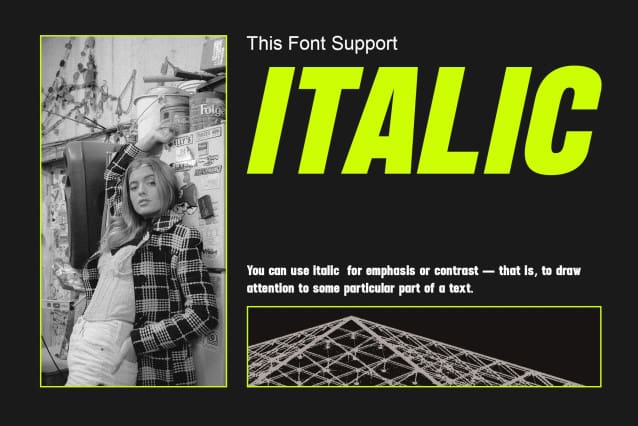
Arnel Font
Arnel Font – Bold Sans Serif is a font that radiates masculinity and strength, designed to captivate attention as a display typeface. With its bold, robust characters, it demands notice and effortlessly captures the eye, making it an excellent choice for various design projects.
The commanding presence of Arnel Font – Bold Sans Serif lends a sense of confidence and power to any text or graphic it graces. Whether used for headlines, posters, or branding, this font’s boldness leaves a lasting impression, ensuring your message stands out distinctly.
In advertising, marketing, or any visual communication, Arnel Font – Bold Sans Serif excels at conveying a bold and impactful message. It embodies a masculine character that resonates with a wide range of audiences, making it a versatile choice for designers seeking a captivating and attention-grabbing display font.